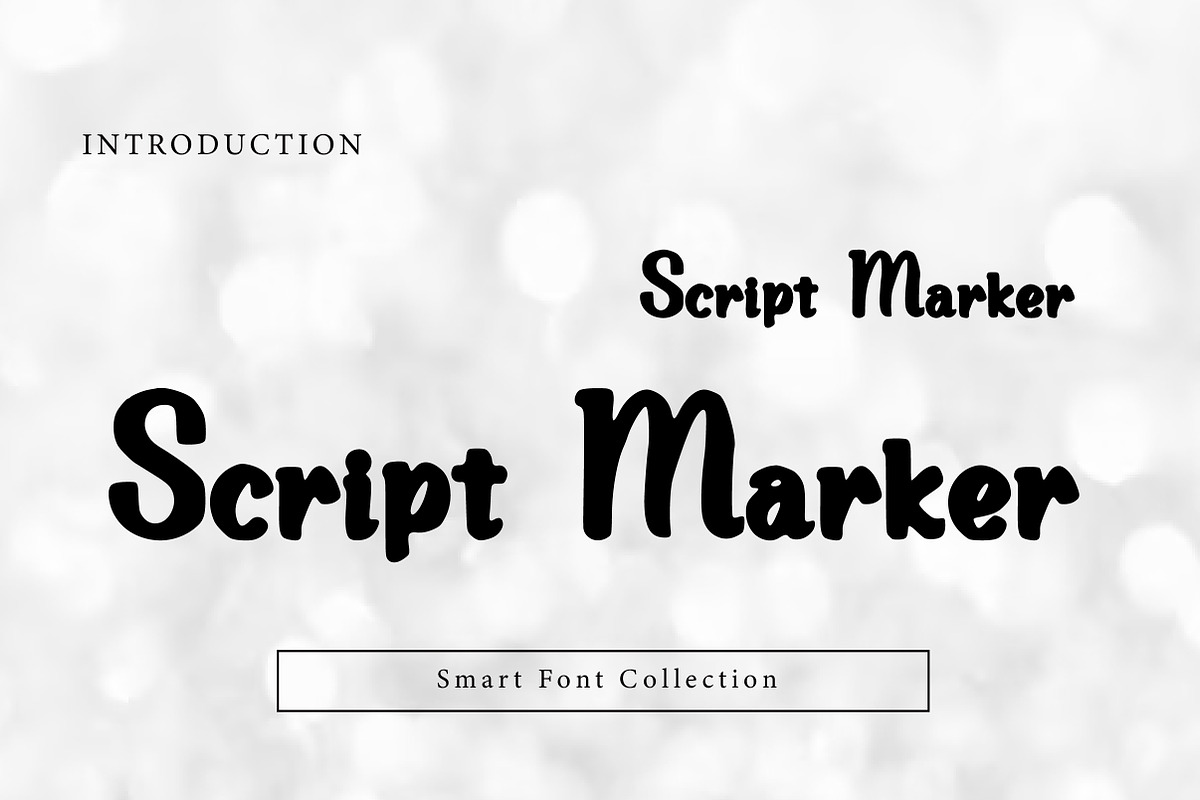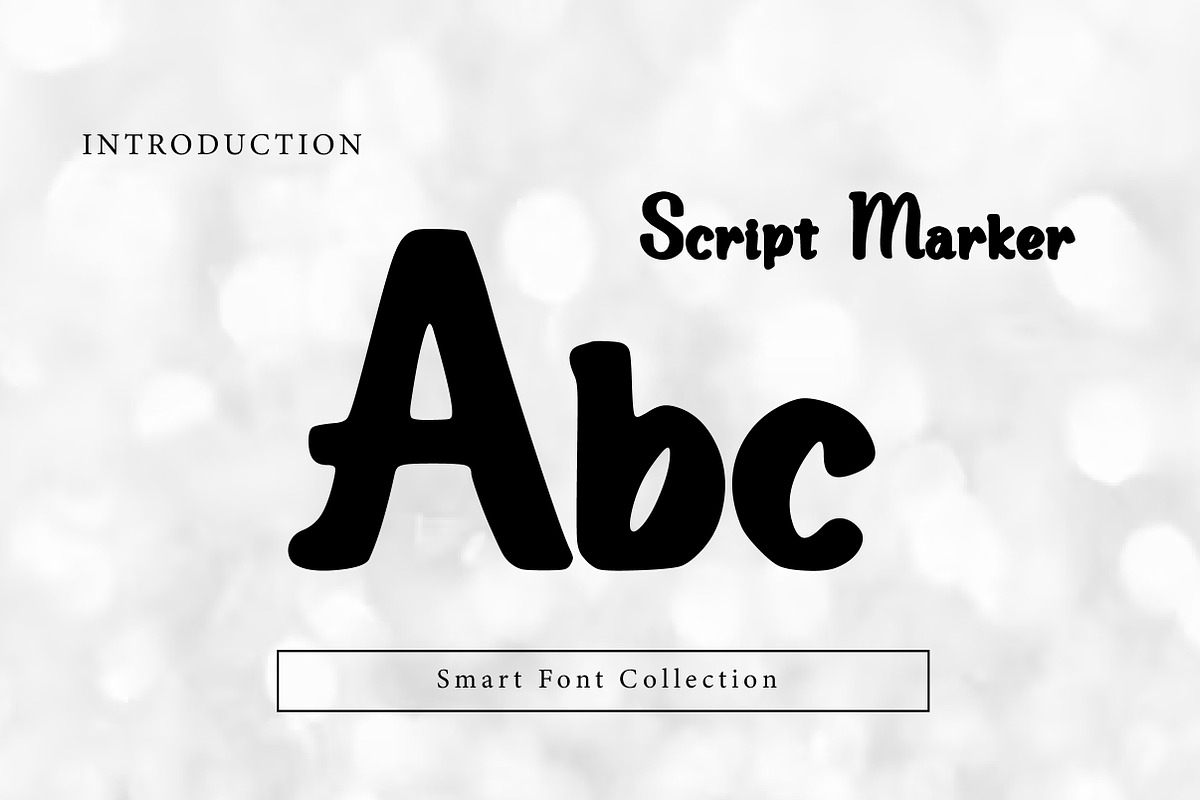
Script marker
Script Marker is a smooth, expressive handwritten marker script font with flowing strokes and a casual, friendly rhythm. Inspired by natural marker lettering, it works beautifully for logos, branding, quotes, posters, social media graphics, packaging, invitations, and modern headline designs. Script Marker feels personal, energetic, and easy to read while keeping a handcrafted charm.